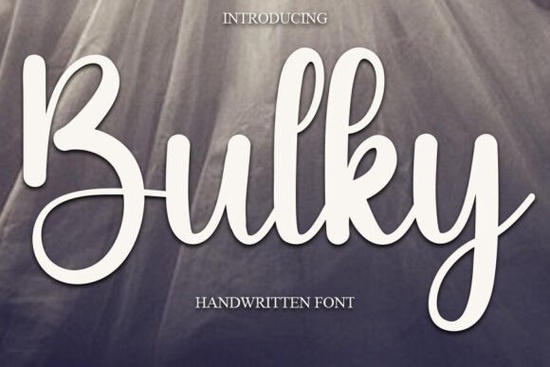
If you're looking for a font that feels warm and personal, Bulky Font is a great choice. It’s a cursive handwritten style with soft curves and a gentle flow perfect for designs where you want to keep things friendly and inviting. Whether you’re creating wedding invitations, branding materials, or simple greeting cards, this font adds a touch of charm without feeling overly formal.
What makes Bulky Font stand out?
Bulky Font isn’t just another script it has a relaxed, slightly rounded feel that gives it a cozy, hand-drawn quality. The strokes are consistent but not rigid, making it ideal for projects that aim for a personal, thoughtful look. It works well in both uppercase and lowercase, and the natural spacing keeps text readable even at smaller sizes.
You’ll find it especially useful when you want to add emotional warmth to your work. Think of it as the digital equivalent of a note written by hand something that feels sincere and heartfelt.
Where can you use Bulky Font?
This versatile font fits naturally into many creative areas:
- Wedding stationery – from save-the-dates to menu cards, it brings a romantic tone.
- Branding & logos – small businesses and indie brands love it for a personal touch.
- Greeting cards – perfect for birthdays, thank-yous, or seasonal messages.
- Fashion & lookbooks – pairs beautifully with minimalist layouts or soft background textures.
- Marketing promotions – use it on social media graphics or flyers to feel approachable.
How does it compare to similar fonts?
If you’ve explored other script fonts, you might have noticed how some feel too stiff or dramatic. Bulky Font strikes a balance elegant enough for special occasions, yet casual enough for everyday use. It’s less ornate than something like Perfect Love Perfect World Font, but still expressive and unique.
For those who prefer simpler styles, you might also consider Simple Stylish Font it’s clean and modern, while Bulky leans more toward handmade warmth.
Looking for something with a bit more flair? Check out Sister Font or Writing Font. They each bring their own personality, but Bulky sits nicely in the middle friendly, readable, and full of character.
Is it easy to use?
Final thoughts: Who should try Bulky Font?
If you’re a designer looking for a reliable, emotionally warm script font, or a small business owner wanting to make your branding feel more personal, Bulky Font is worth adding to your toolkit. It’s not flashy, but it’s consistently good and that matters.
It’s also a solid choice if you’re exploring different handwriting-style fonts and want one that feels authentic, not overdone.
Want to see it in action? Try pairing it with a neutral background or soft pastel colors to let the font shine. And don’t forget to explore related styles like Sister Font or Writing Font for variety in your next project.